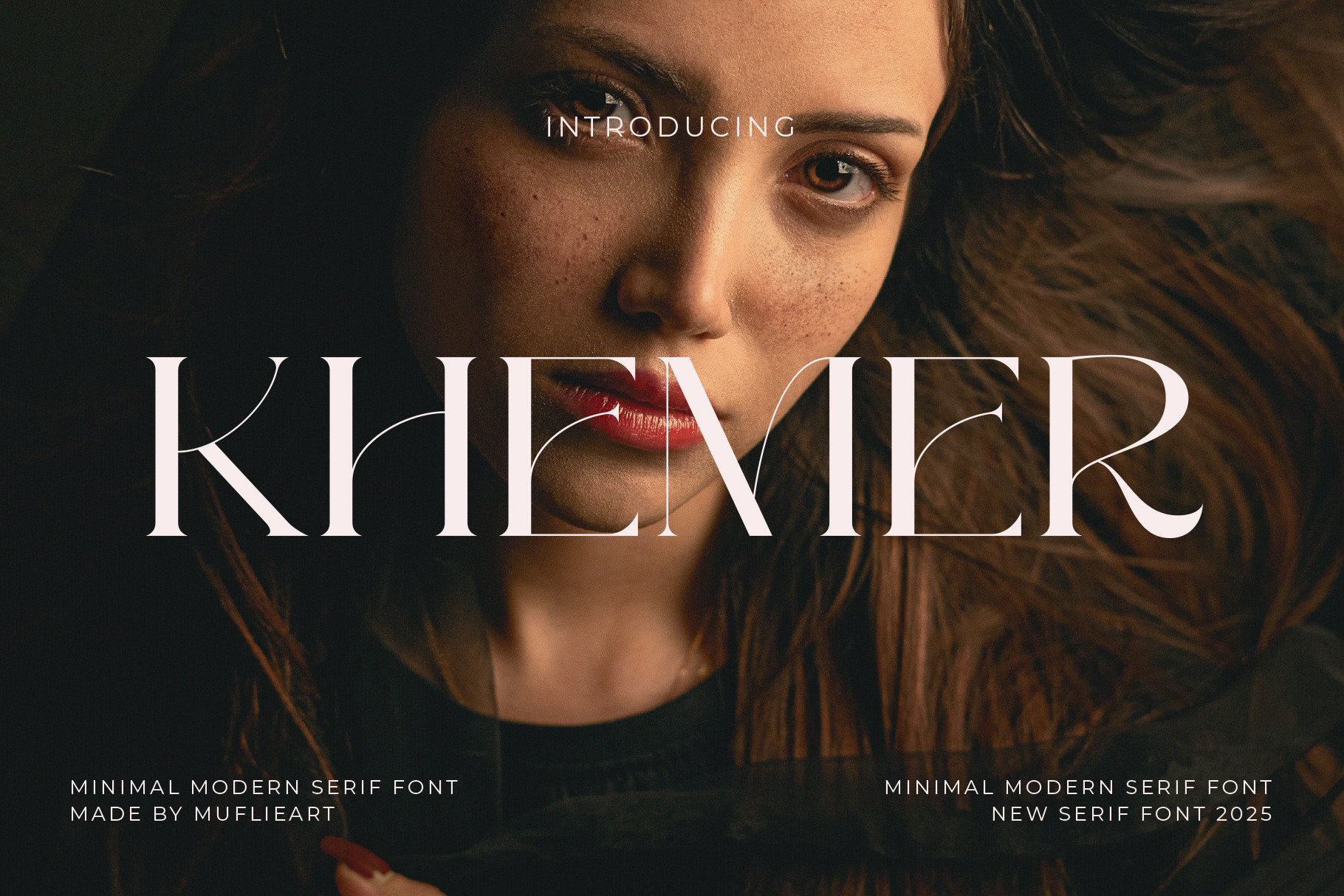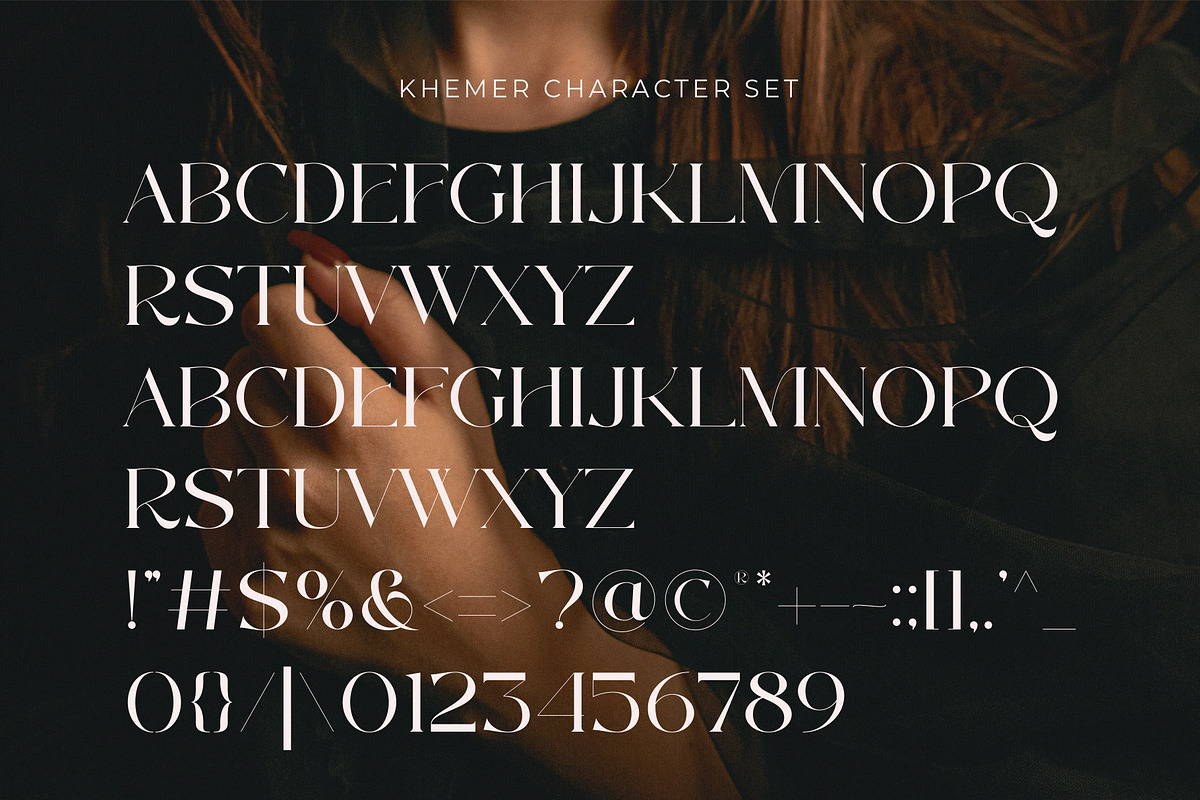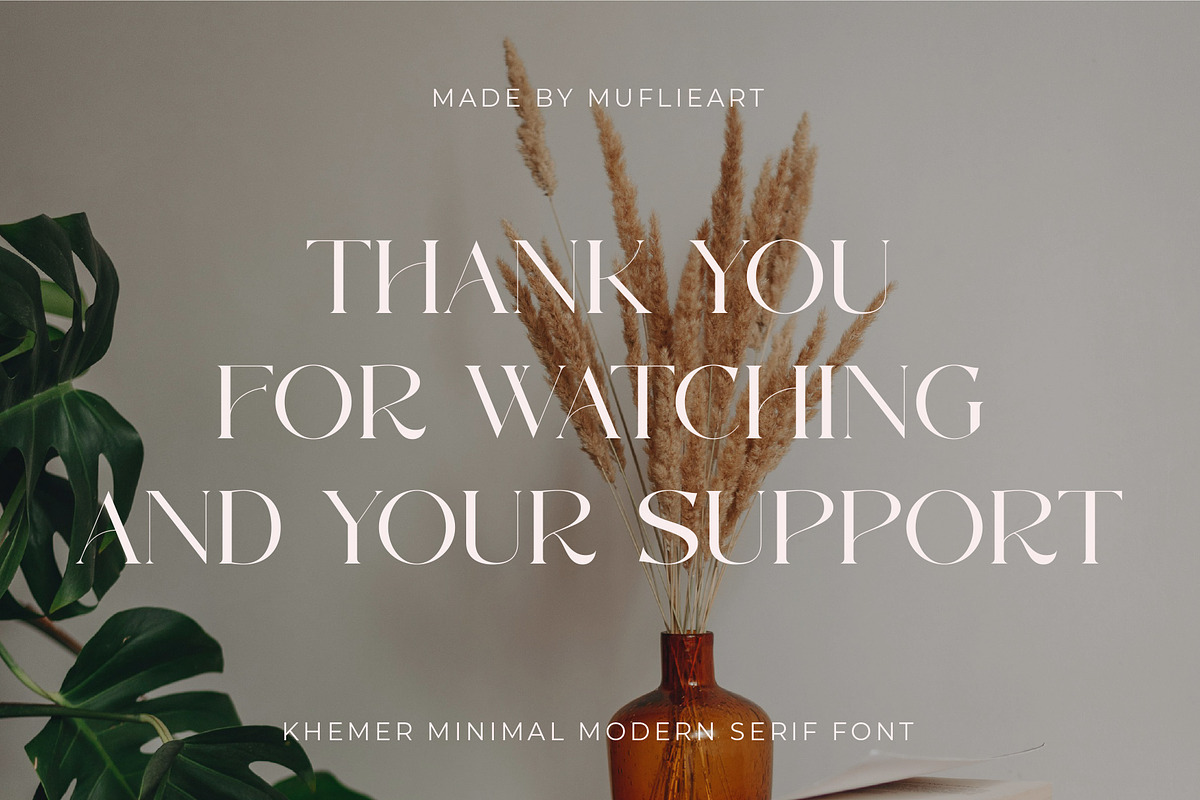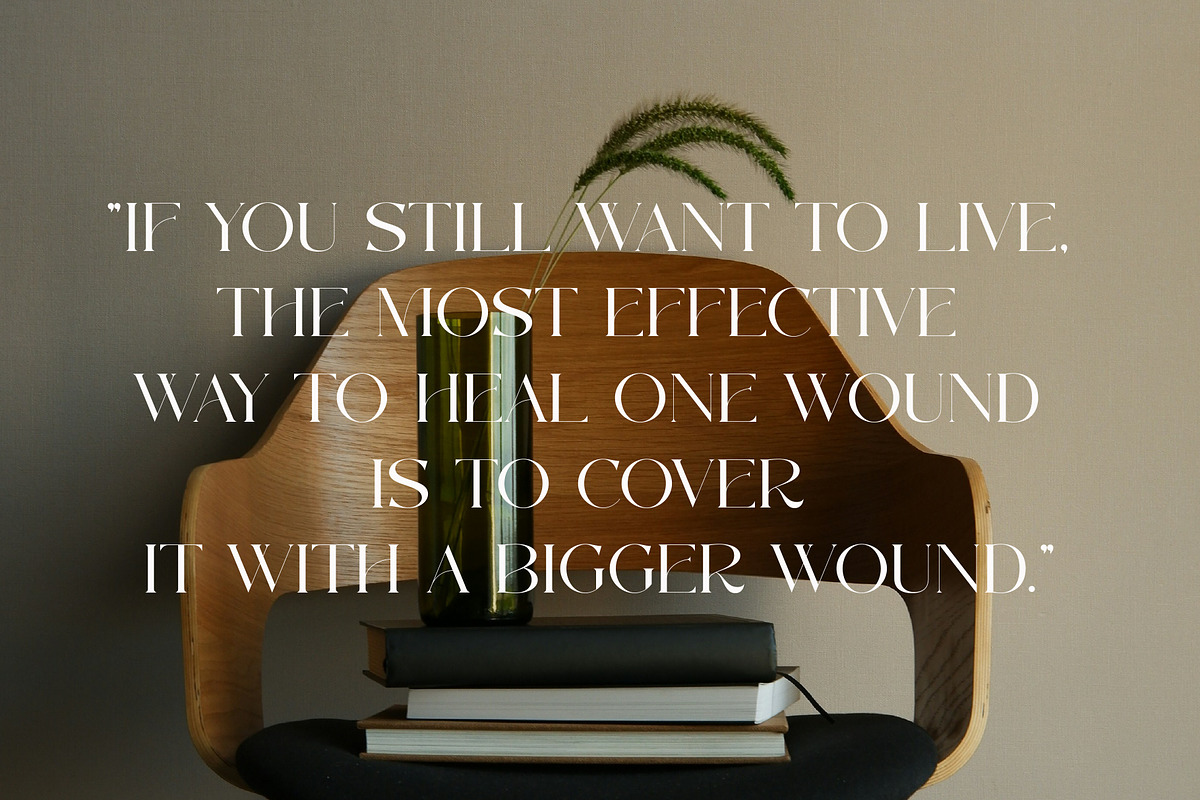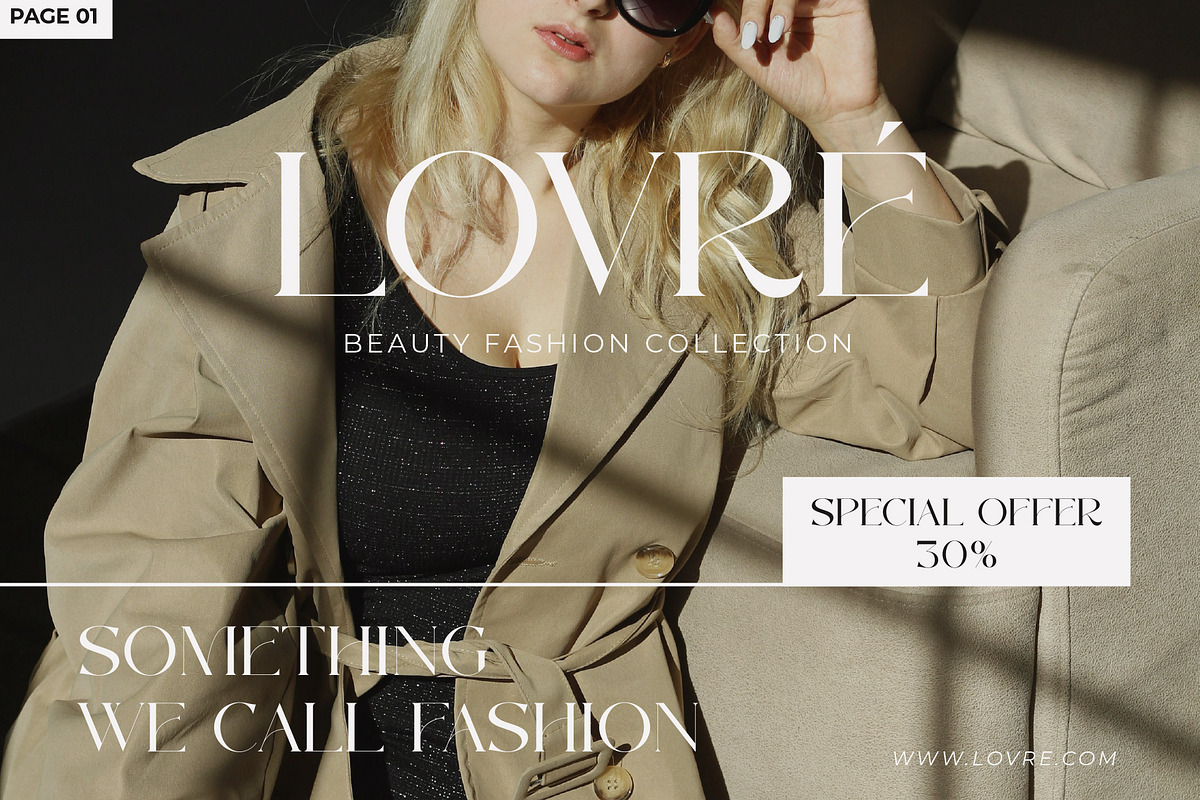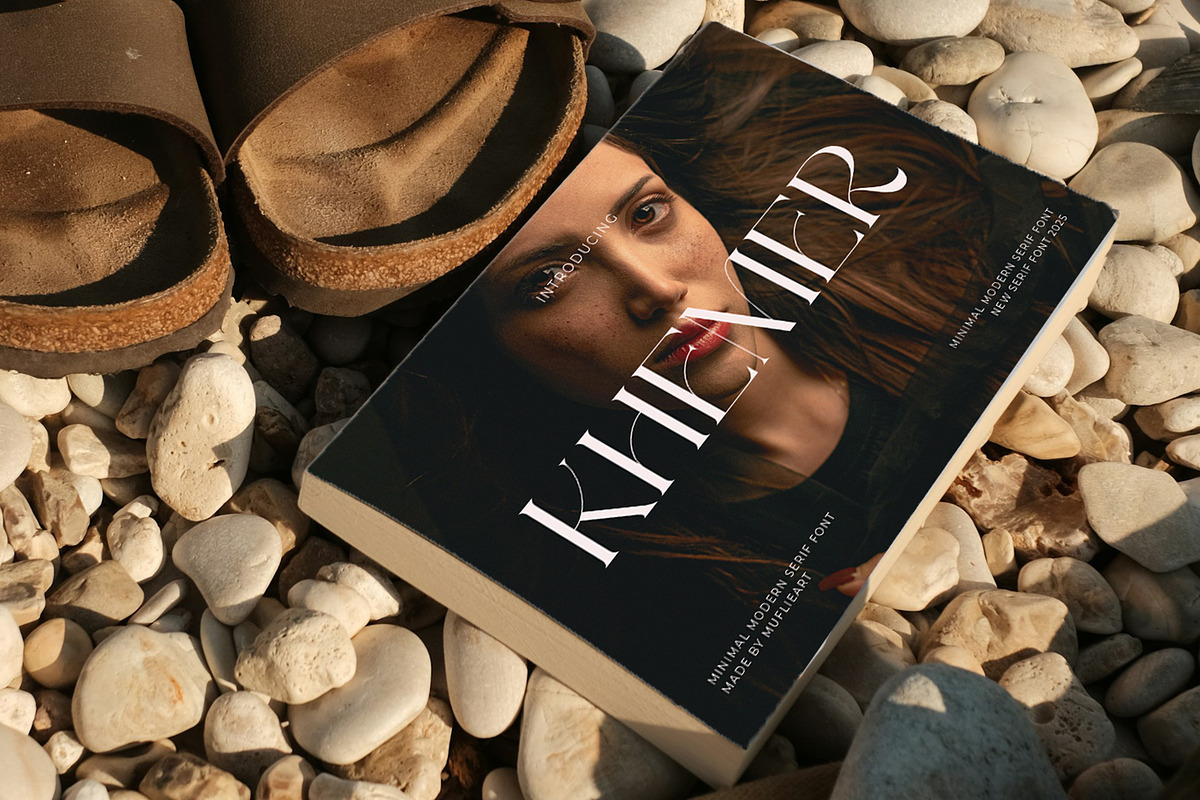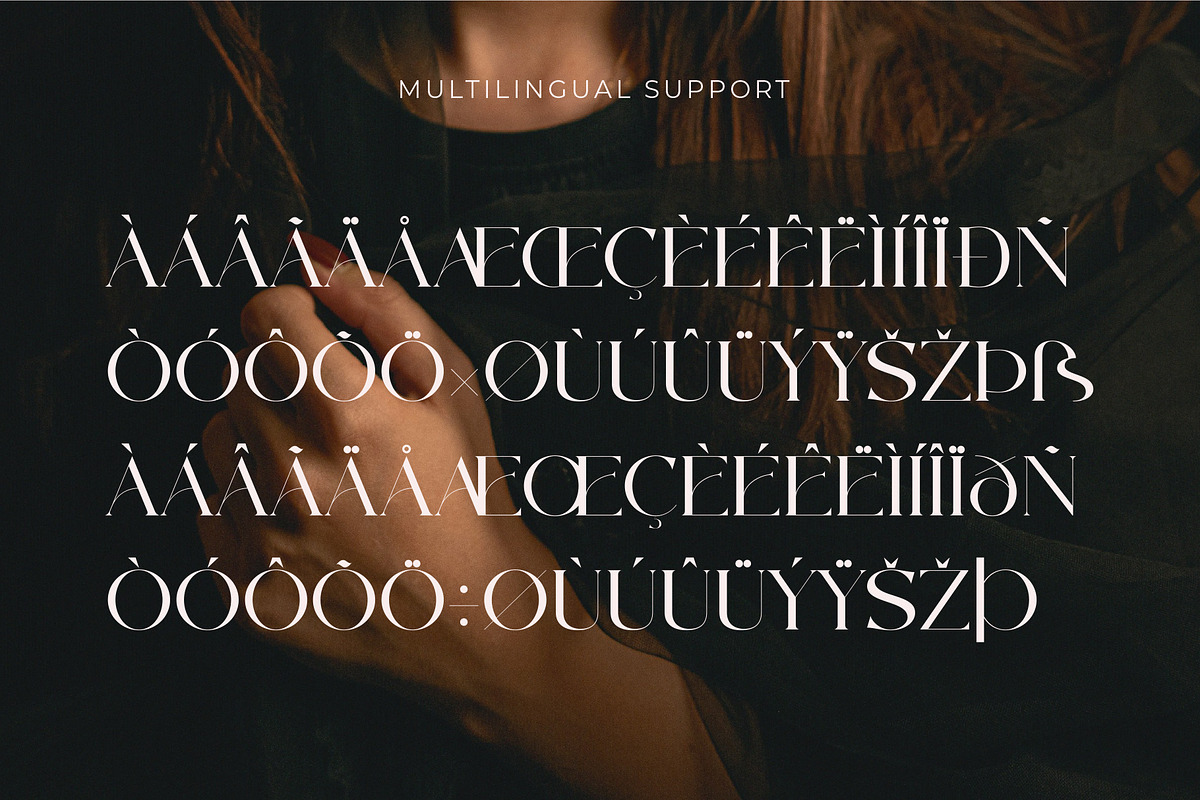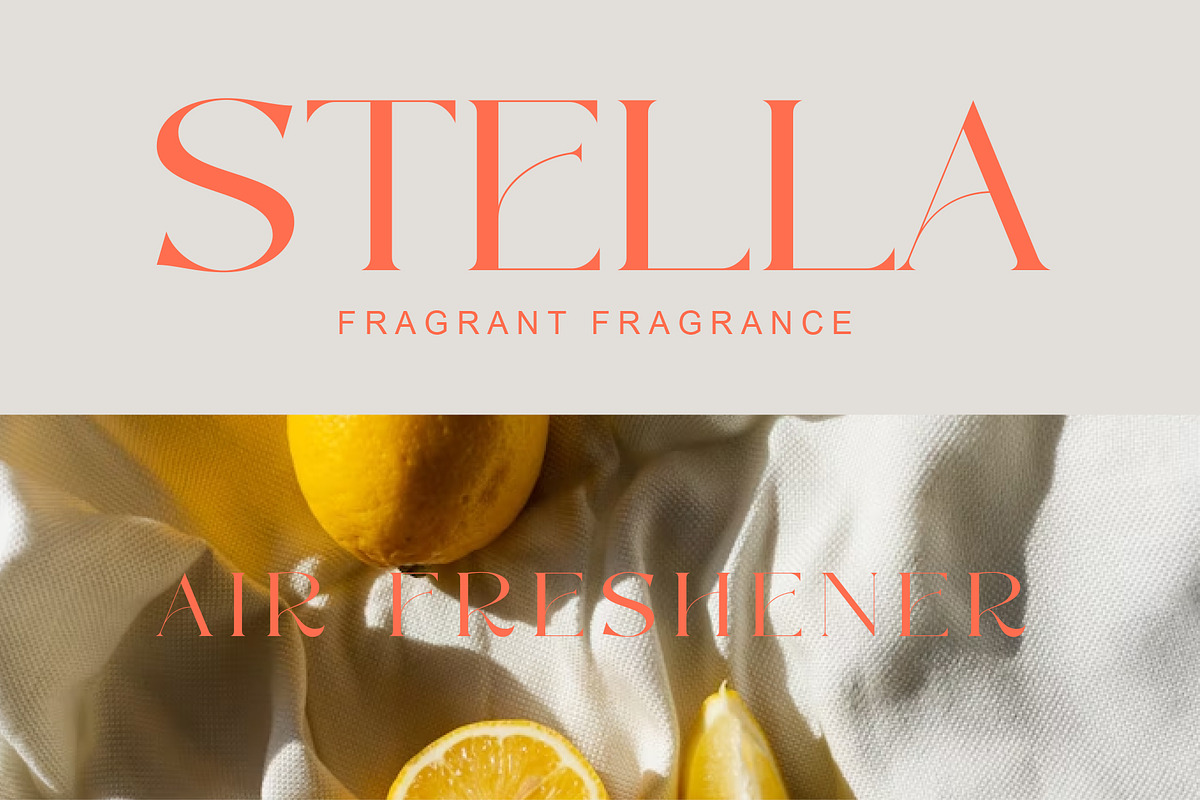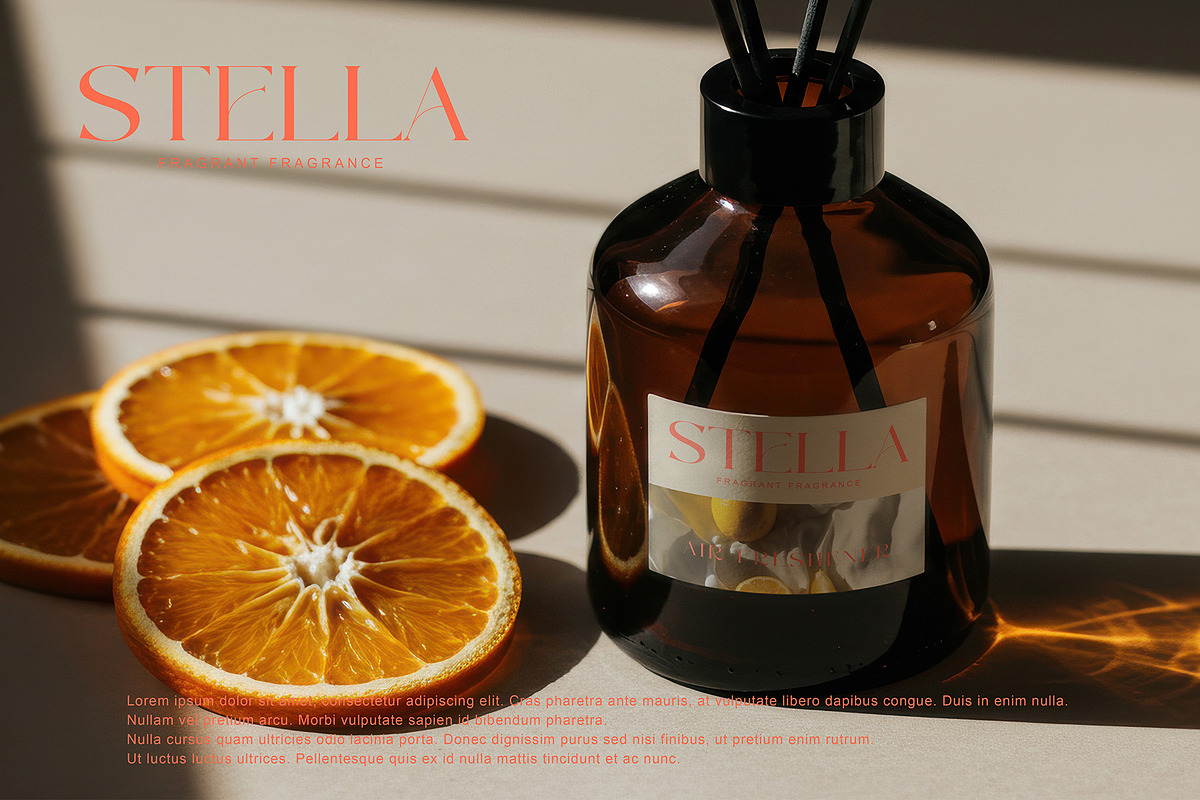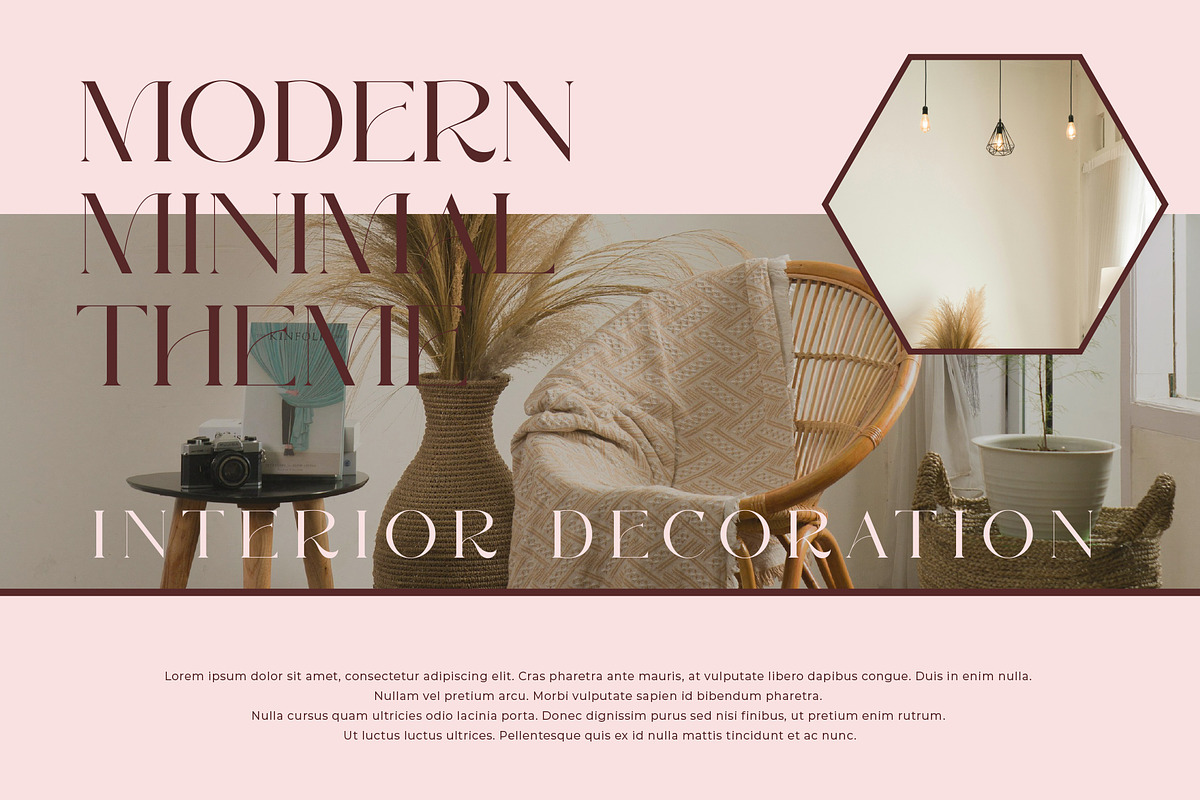
Khemer - Minimal Modern Serif Font
Khemer – Minimal Modern Serif is a modern serif font with an elegant minimalist style. This font is specifically designed to add a clean, professional, and classy touch to any design.
This font comes with full capital letters, numbers, punctuation, and multilingual support, making it highly flexible for use in various international design needs.
Perfectly suited for:
- Branding & Logos
- Editorial Design (magazines, books, articles)
- Posters & Headlines
- Web Design & Social Media
- Business Cards & Stationery
- Product Packaging
With a combination of minimalist and modern styles, Khemer creates a bold yet elegant impression. It's an ideal choice for designers seeking simple typography with character.